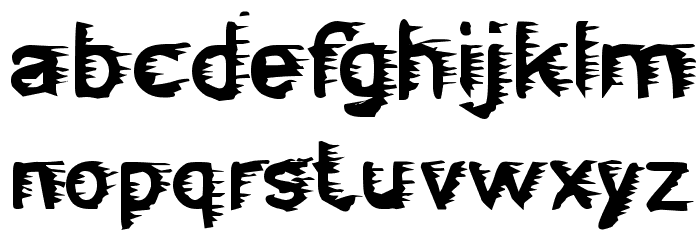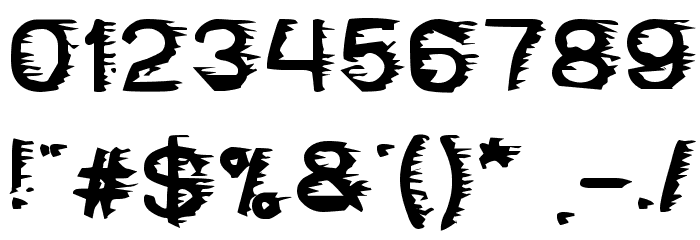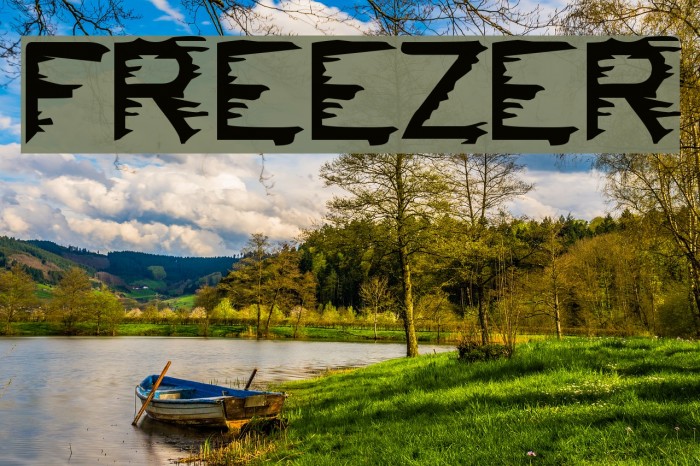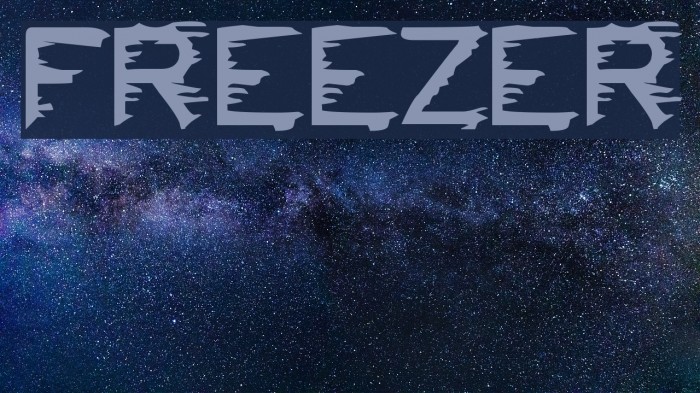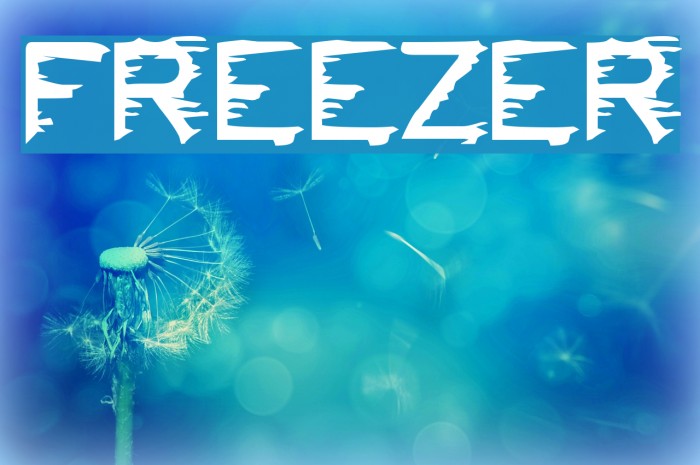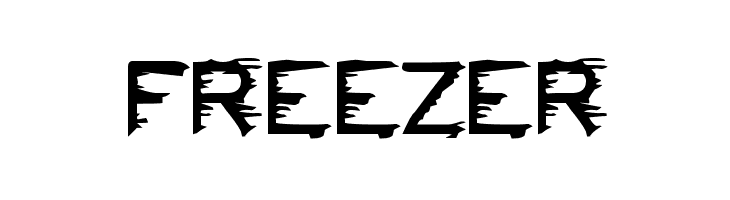
FREEZER Font
This font features a bold and jagged design, reminiscent of ice shards or cracked surfaces. Each character is uniquely styled with sharp edges and irregular contours, giving it a dynamic and edgy appearance. The uppercase and lowercase letters maintain a consistent theme, with the jagged elements creating a sense of movement and energy. Numbers and special characters follow the same design principles, ensuring a cohesive look across all glyphs. The font's distinct style makes it suitable for eye-catching headlines or thematic designs that require a touch of drama and intensity.
A bold, jagged font with an icy, dynamic appearance.
- Proposed Projects: Ideal for horror-themed posters, winter sports branding, or any project needing a dramatic, edgy typeface.